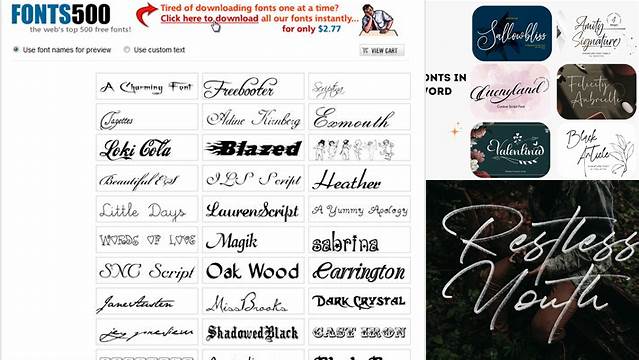
Free Cursive Fonts For Microsoft Word
Hey everyone! Ever feel like adding a touch of elegance or a personal flair to your documents? Or maybe you're looking to create something that feels more handwritten? Well, you're in luck! We're diving into the wonderful world of free cursive handwriting fonts that you can use right in Microsoft Word. No more boring Times New Roman – it's time to get creative! Whether you're crafting invitations, designing scrapbooks, or just want to make your notes look a little more special, these fonts will do the trick. So, grab a cup of coffee, get comfy, and let's explore some fantastic options that won't cost you a dime. We'll cover where to find them, how to install them, and even some tips on using them effectively. Let's get started and transform your documents from plain to wow!
Finding Your Perfect Cursive Font: Where to Look and What to Consider
So, where do you even begin your quest for the perfect cursive font, right? There's a whole internet out there filled with options, and it can be a bit overwhelming. But don't worry, I'm here to guide you through it. Firstly, let's talk about the best places to find these free fonts. My top recommendations include sites like Google Fonts, DaFont, and Font Squirrel. These websites are goldmines for fonts. They often have a wide variety of cursive fonts available, each with different styles and characteristics. You will find everything from elegant scripts that look like they belong on a wedding invitation to more casual and playful styles perfect for kids' projects. When you visit these sites, you can usually browse by category. Look for options like "script," "handwritten," or "cursive." This will narrow down your search significantly and make it easier to find what you're looking for. Before you download anything, it's important to consider a few things to ensure you find a font that fits your needs. First, think about the style. Do you want something formal and sophisticated, or more relaxed and friendly? The style of the font will significantly impact the overall look and feel of your document. Also, check the license. Most free fonts are available for personal use, but if you plan to use them commercially (like in a business setting), you might need to check the license agreement to ensure you can do so legally. This information is usually found on the font's download page. Finally, consider the character set and the language support offered by the font. Does it include all the special characters and glyphs you need, like accented letters or symbols? Make sure the font you choose supports the languages you'll be using. It would be a bummer to download a beautiful font only to find it doesn't support a letter in your name. Take your time, explore different options, and find the perfect font that resonates with your vision. With these pointers in mind, you will be able to get the best free cursive handwriting fonts for Microsoft Word.
Tips and Tricks: Making the Most of Your Cursive Fonts in Word
Okay, so you've got your free cursive handwriting font installed – awesome! But how do you really make it shine and make your documents pop? Let's explore some tips and tricks to help you get the most out of these fonts in Microsoft Word. First and foremost, remember that cursive fonts are best used sparingly. They're fantastic for headings, titles, and short phrases, but using them for large blocks of text can be difficult to read and may make your document look cluttered. Think of them as a special touch, not the main course. Experiment with different font sizes and styles. Some cursive fonts look great at larger sizes, while others might work better at smaller sizes. Try adjusting the size until it looks balanced and readable. Also, consider using bold or italic formatting to add emphasis. This can help your headings stand out or add a touch of elegance to your text. Another key consideration is spacing. Cursive fonts often have unique letter connections, and adjusting the spacing between letters and lines can significantly impact the overall look. In Word, you can adjust the character spacing in the "Font" settings (accessible by clicking the small arrow in the "Font" section of the "Home" tab) or the paragraph spacing in the "Paragraph" section. Play around with these settings until you find the perfect balance. You might need to reduce the spacing between characters if the letters appear too far apart. Consider the context of your document. Are you creating a formal invitation, a casual greeting card, or something else entirely? The tone of your document should match the font you choose. A more elaborate script font is great for formal occasions, while a more playful font might be perfect for a children's birthday card. Remember that the goal is to enhance the readability and visual appeal of your document, not to make it difficult to read. So, always keep readability in mind, and be sure to proofread your text to ensure that there are no typos or formatting inconsistencies. By following these tips and using your creativity, you can truly elevate your documents with your chosen cursive fonts.
Beyond the Basics: Creative Uses for Cursive Fonts
Alright, you've mastered the installation, the formatting, and the troubleshooting – now what? Let's spark some creativity and explore some of the amazing ways you can use free cursive handwriting fonts to add a personal touch to your projects and documents. Forget boring standard text! These fonts are perfect for crafting personalized greeting cards that express heartfelt messages in a more intimate way. Use them for birthday wishes, thank-you notes, or holiday greetings to make your sentiments stand out. They're also fantastic for creating stunning invitations. Design wedding invitations, party invites, or even business event announcements, to make a great first impression. Cursive fonts can lend a touch of sophistication and elegance to your invitations. Want to unleash your inner artist? Use cursive fonts to create unique titles and headings for your scrapbooks and journals. They can add a personalized flair, whether you're documenting travel memories, family photos, or personal reflections. They're a wonderful way to personalize your notes and letters, giving them a more personal and polished look. Consider using a cursive font for your signature or a favorite quote. You can then insert these as images or directly into your documents, adding a unique touch of personality. Create personalized gifts, such as custom wall art with inspirational quotes, or design unique labels and tags for your homemade products. Add a touch of style to your presentations. Use cursive fonts for titles, headings, or quotes to make your presentations more visually appealing and memorable. Be creative with your use of color, size, and style. Experiment with different combinations to achieve unique and captivating effects. Remember that the possibilities are only limited by your imagination. Enjoy the process, experiment with different options, and let your creativity flow. You will be able to get the best free cursive handwriting fonts for Microsoft Word.
Conclusion: Embracing the Art of Cursive in Microsoft Word
So there you have it! We've covered everything from finding the perfect free cursive handwriting fonts to installing them, mastering the formatting, and getting creative with their applications in Microsoft Word. Using cursive fonts is a fantastic way to add a personal and elegant touch to your documents. They can enhance the visual appeal of invitations, greeting cards, presentations, and more. Remember to choose your fonts wisely, paying attention to the style, license, and character set. Always prioritize readability, and use cursive fonts judiciously. Experiment with different font sizes, spacing, and formatting to find what works best for your project. Don't be afraid to try out different combinations and styles to create unique and personalized designs. With a little practice and experimentation, you can elevate your documents and unleash your inner artist. Enjoy the process of creating beautiful and personalized documents that stand out. Happy font hunting and happy creating!